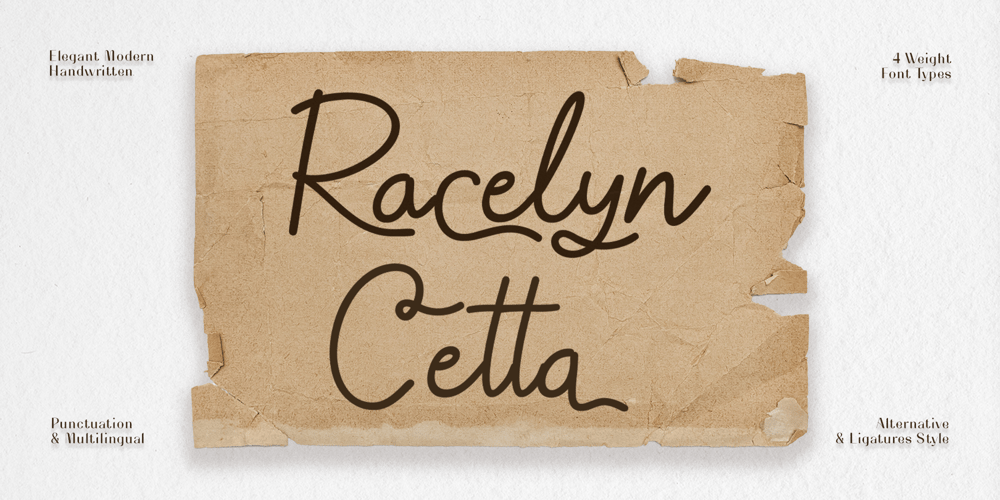
Racelyn Cetta Font Family was designed by Frederik Aristaputra and published by Creatifont Studio. Racelyn Cetta contains 4 styles and family package options. Racelyn Cetta is a graceful handwritten font that seamlessly blends elegance with a touch of casual charm. Its clean, single-line design offers a modern aesthetic while maintaining a timeless appeal. The font’s fluid, natural flow and diverse style options make it a versatile choice for various design projects.A SUMMARY OF WHAT’S INCLUDED: Standard Character A-Z, a-z, 0-9, Punctuation & symbols Regular and Bold and Italic Styles Multilingual Support Works on PC & Mac Simple installation Accessible in Adobe Creative Suite (Ai, Ps, Id, etc.) even work on Microsoft Word. PUA Encoded Characters – Fully accessible without additional design software. ————————————–🌟If you come across any issues or notice anything we might have overlooked while using this product, please feel free to reach out to us. We greatly value your feedback as it helps us enhance and refine our products. Thank you!